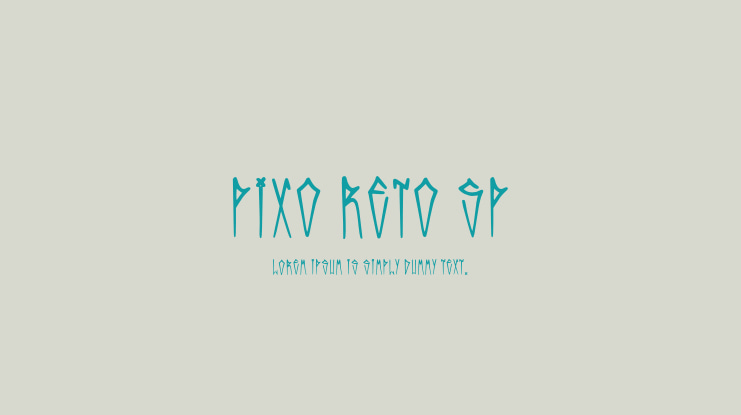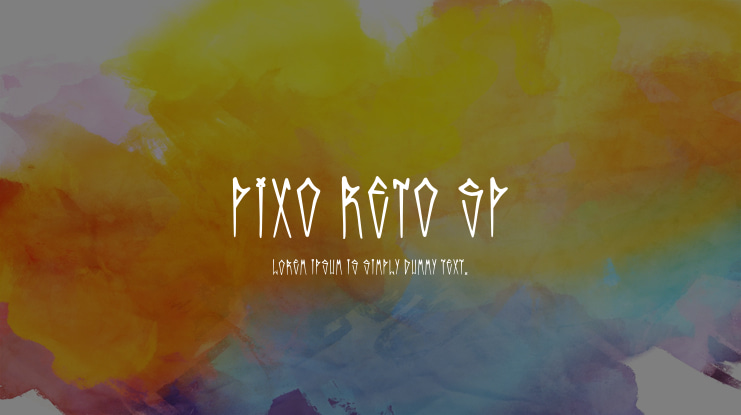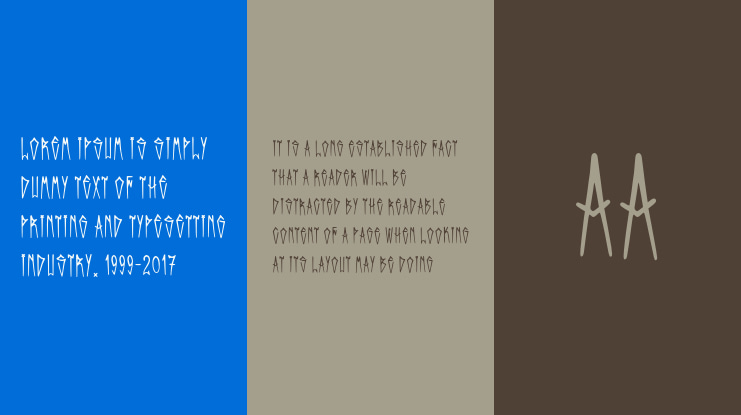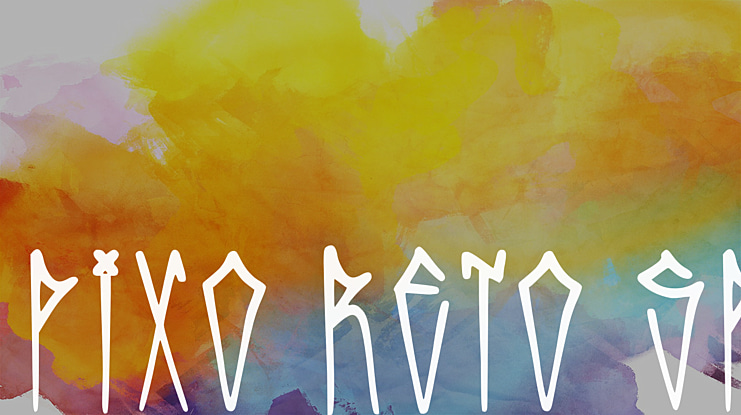
Pixo Reto SP Font
PIXO RETO SP Based on the typography that comes from the streets of São Paulo (Brazil): Pixação. Pixação is considered vandalism by many people, and considered an artistic manifestation by so many others.
PIXO RETO SP Baseada na tipografia das ruas de São Paulo: a Pixação. A pixação é considerada vandalismo por muitos, e considerada uma manifestação artística por outros tantos.